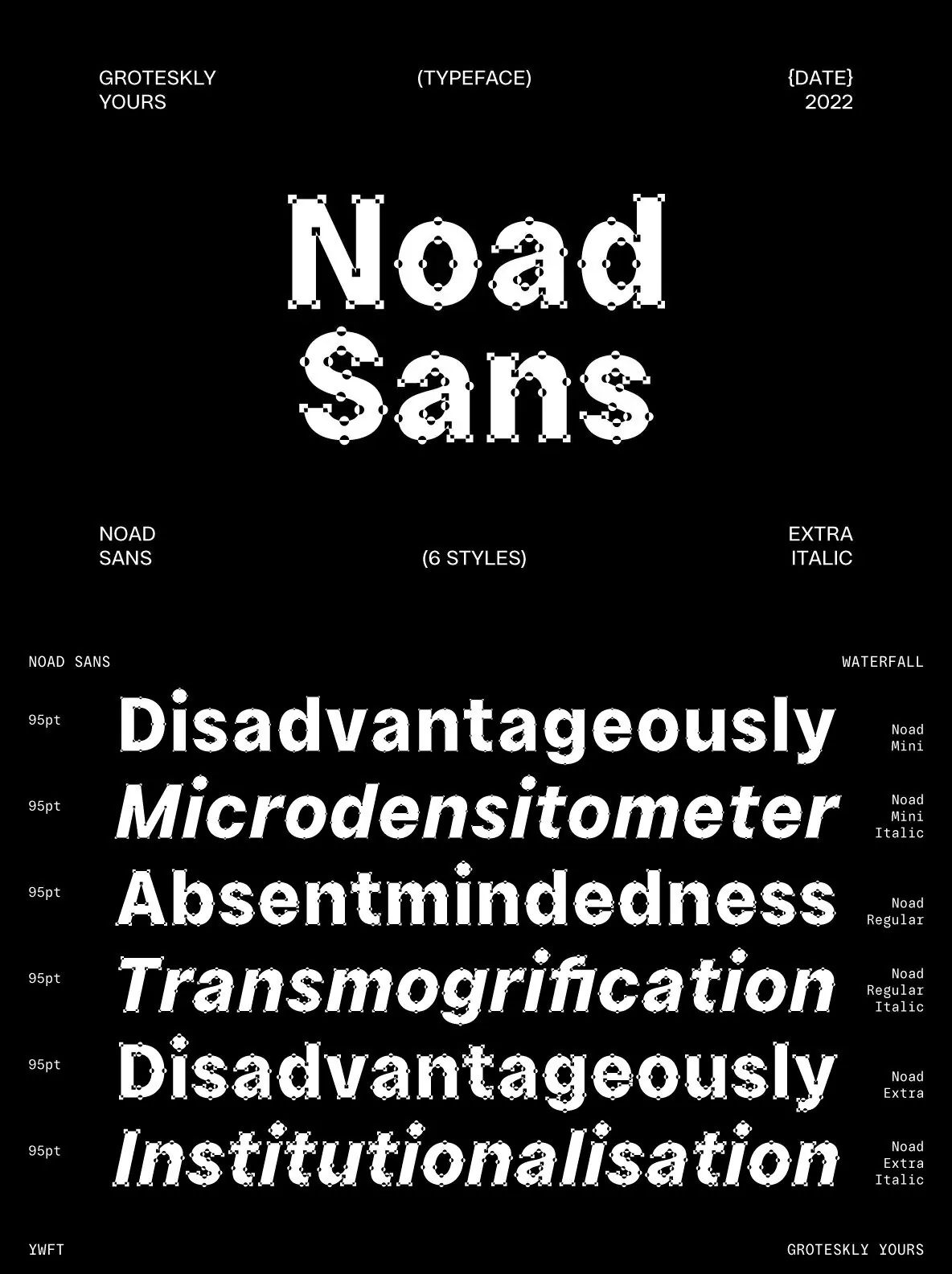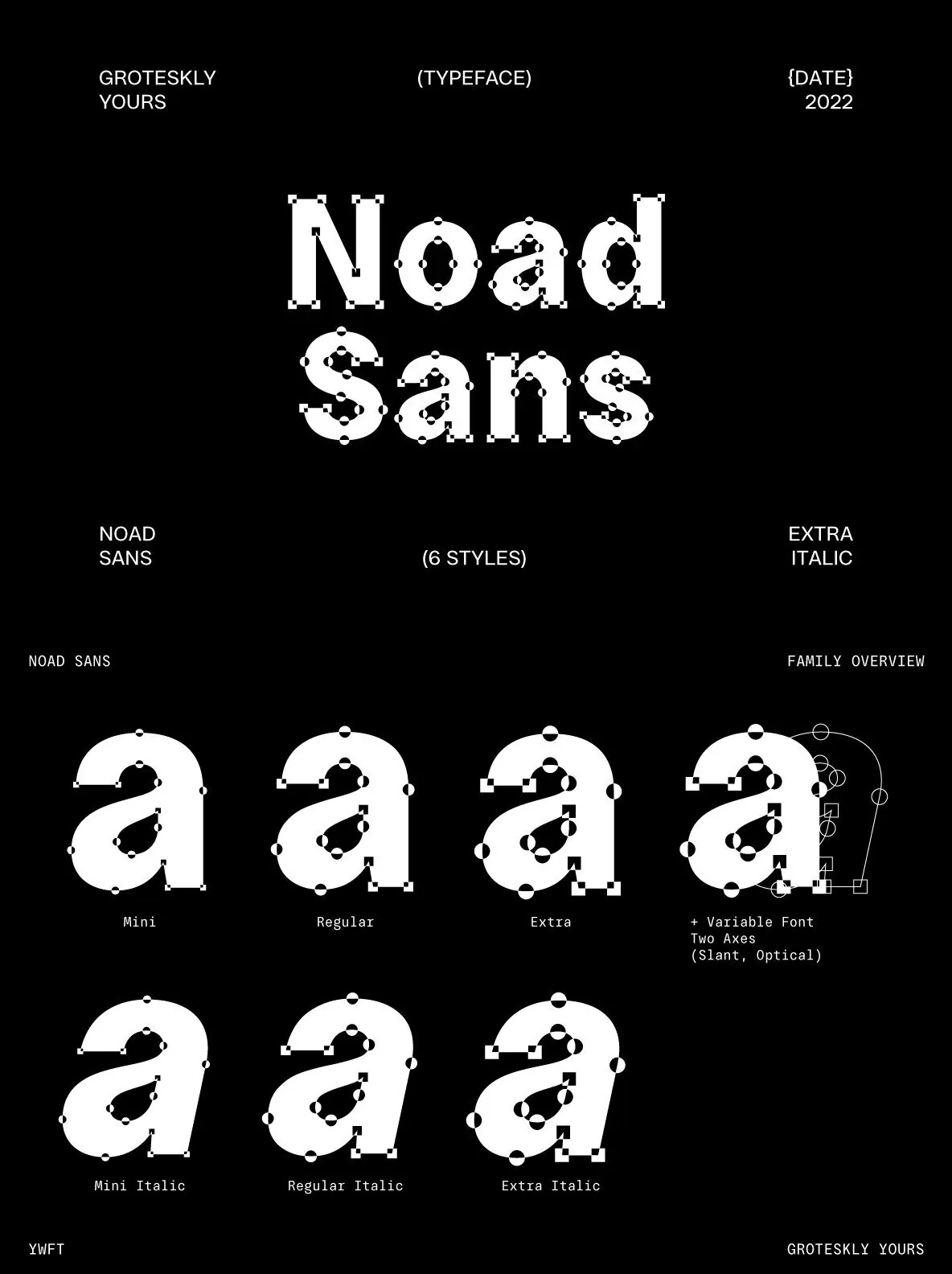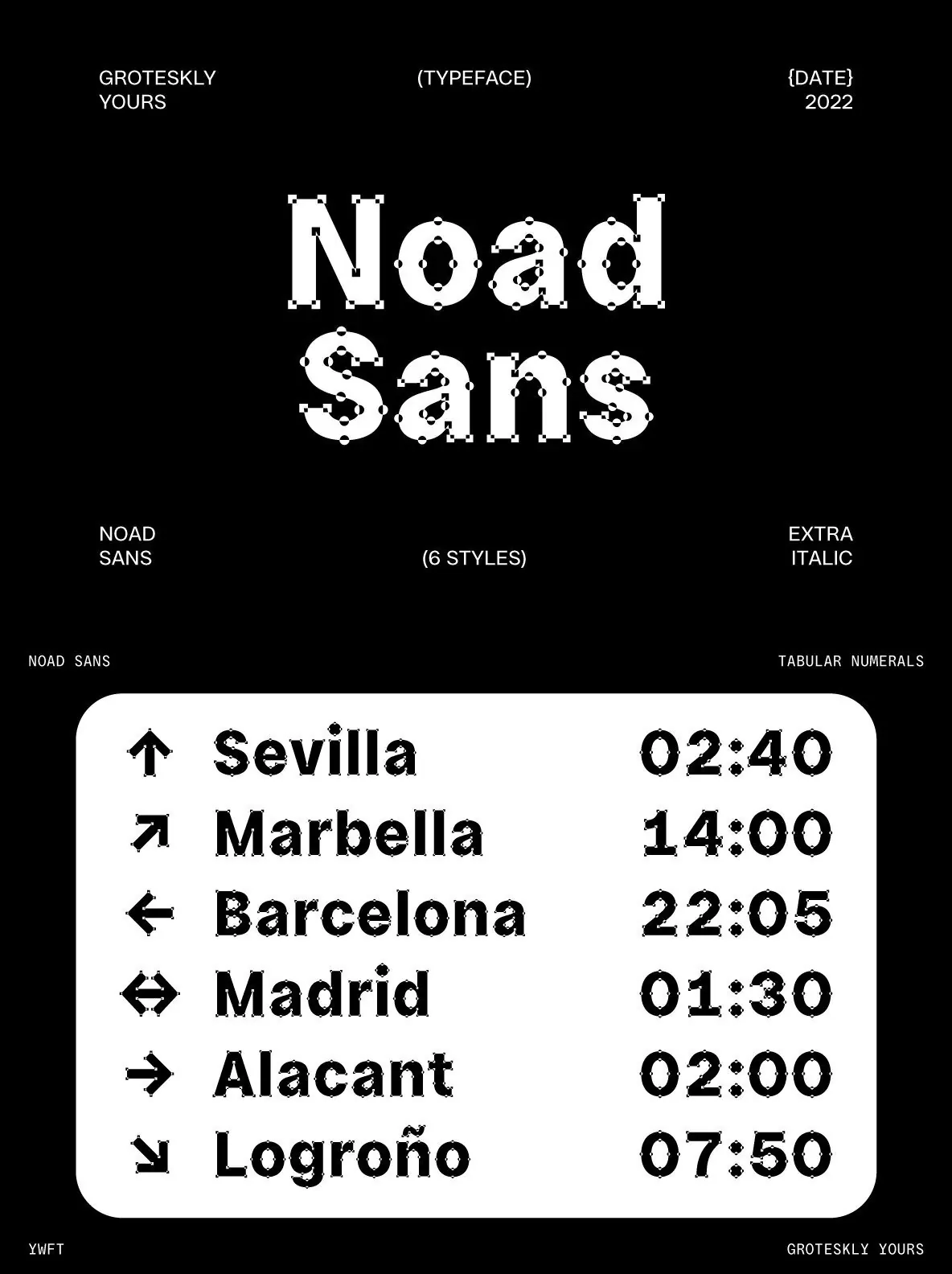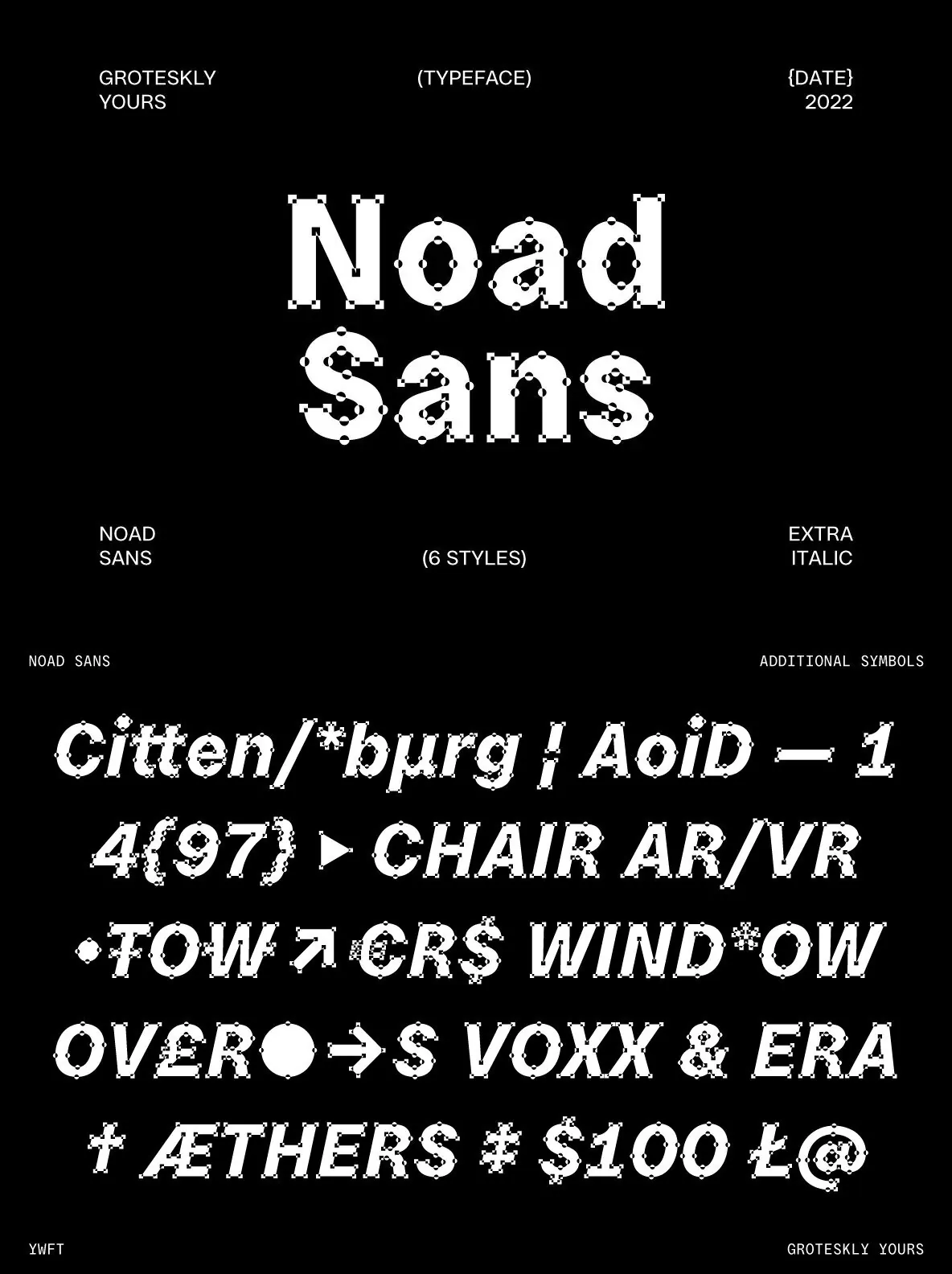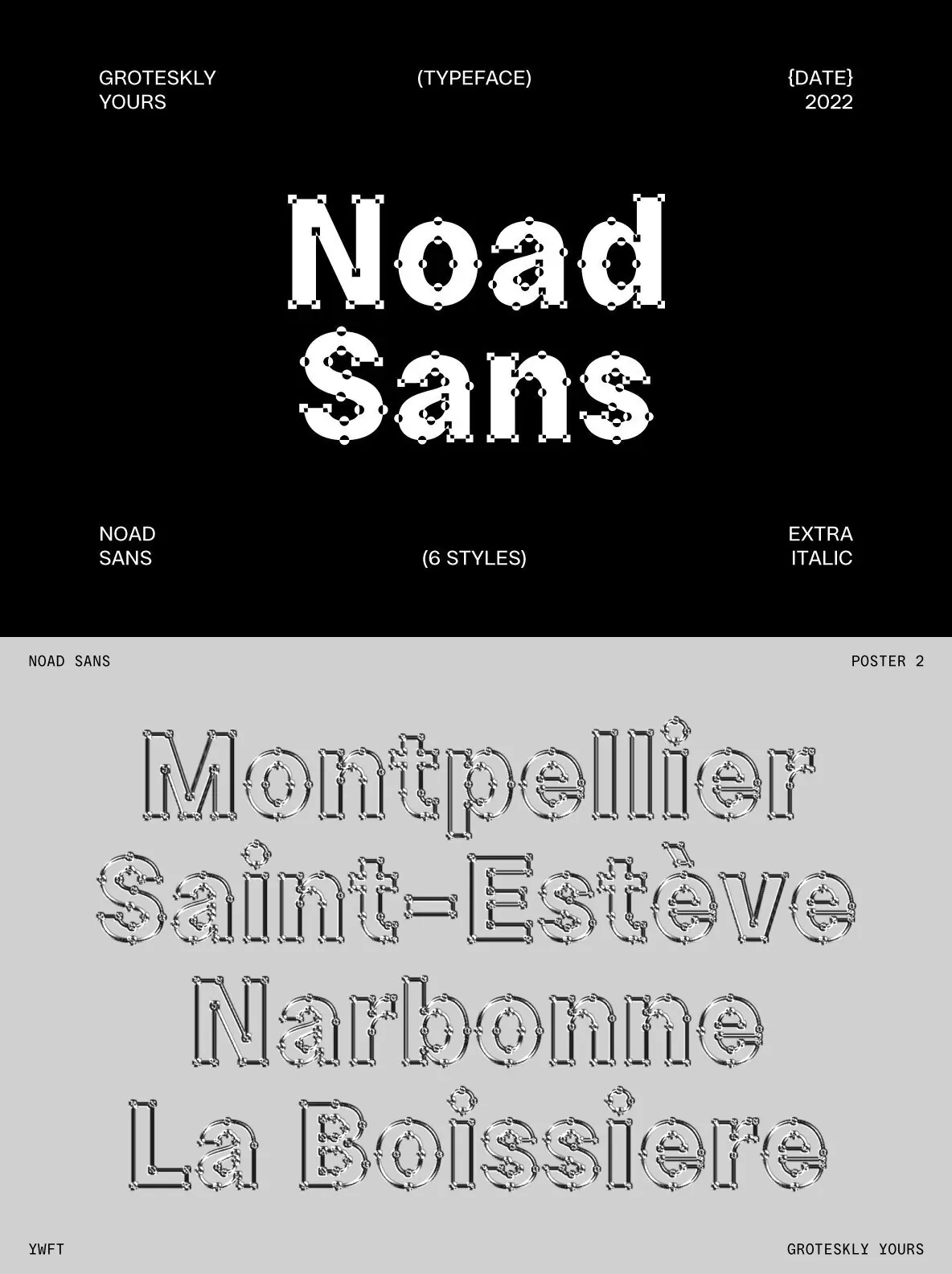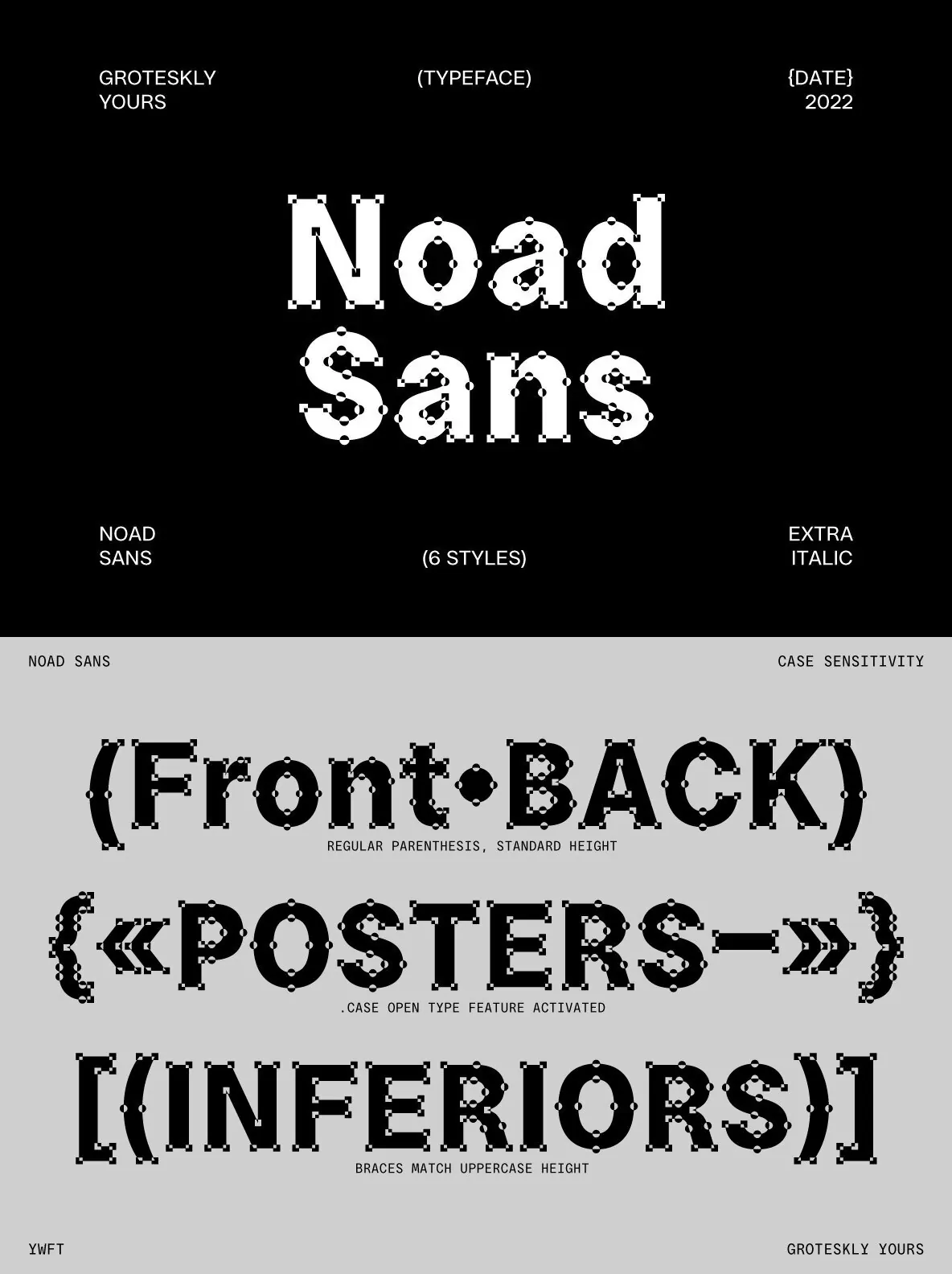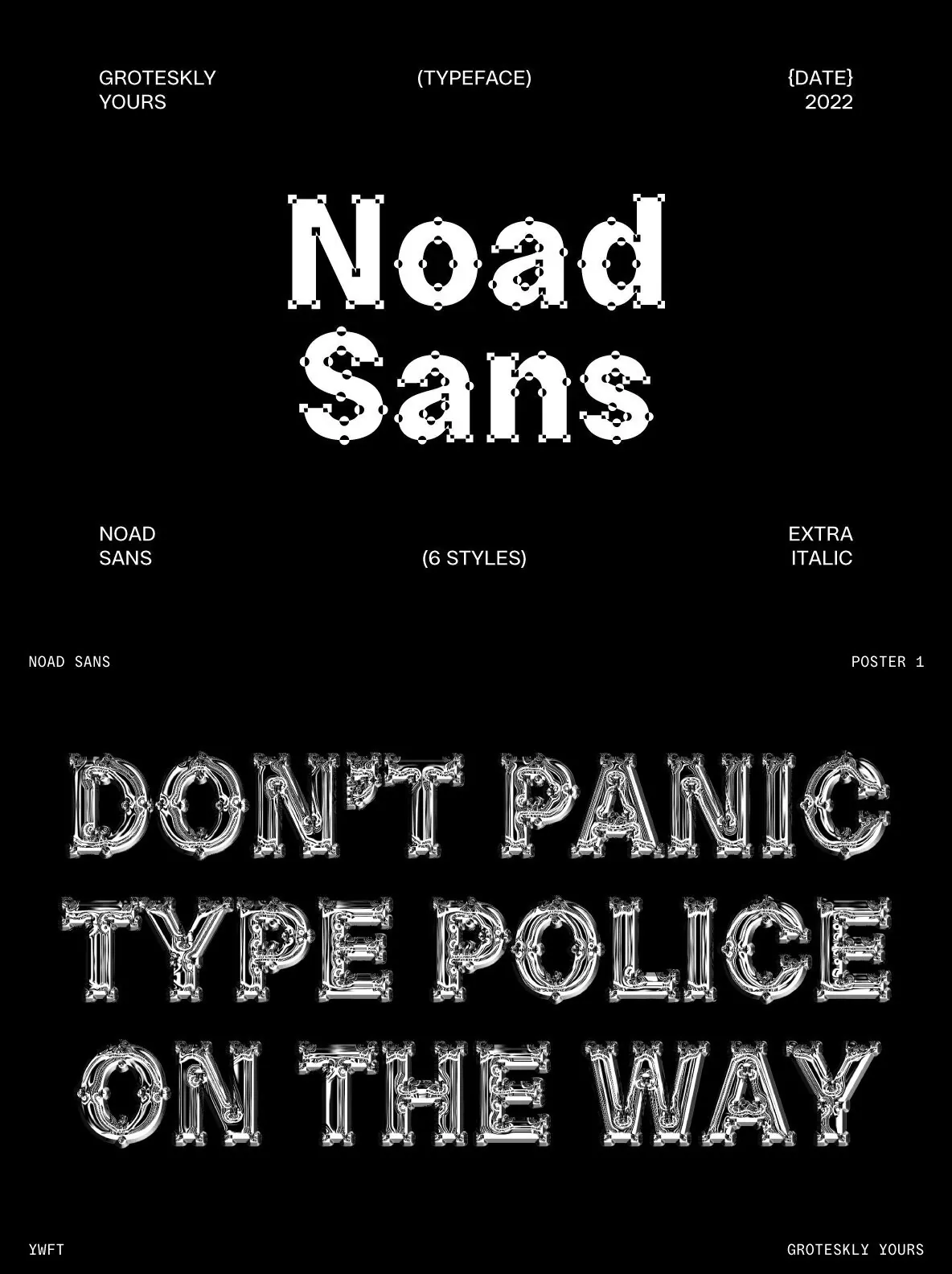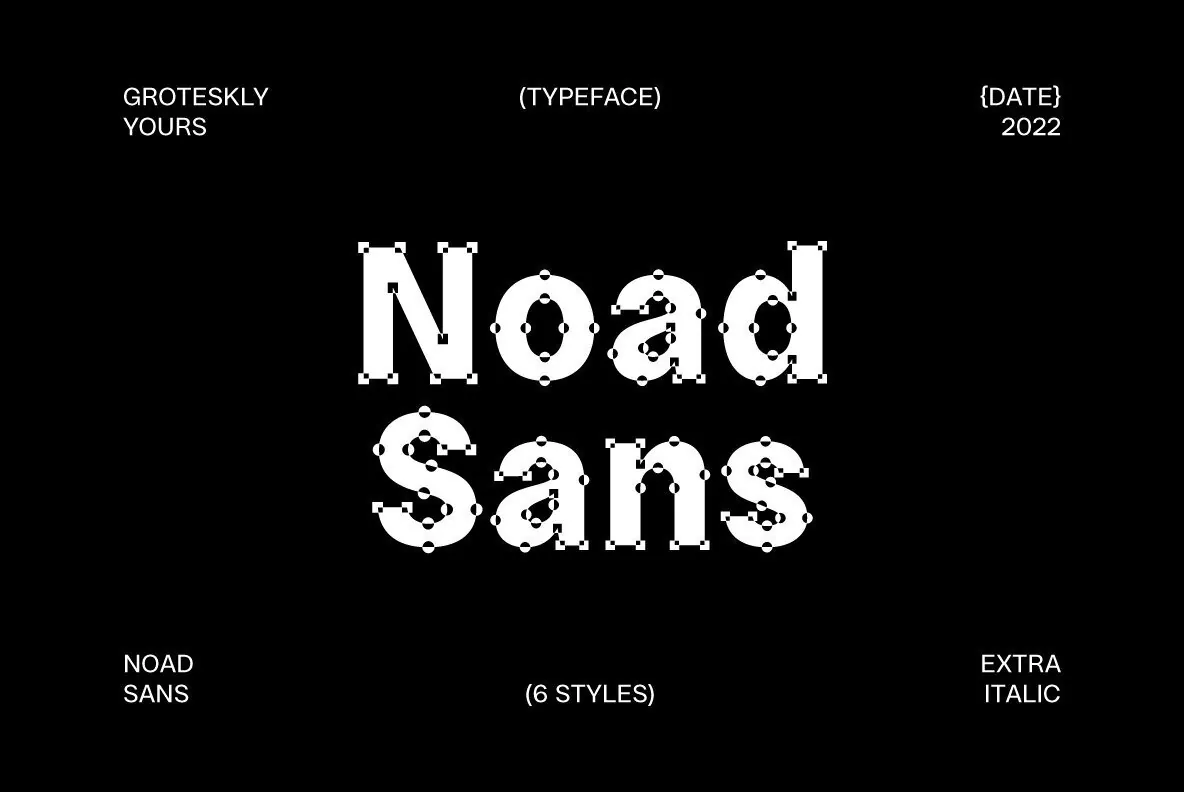
乯慤⁓慮猠鐠乯摥猠奯甠䍡渠卥攍潡搠卡湳ഊ楳渠數灥物浥湴慬慮猠獥物映瑹灥晡捥⁷楴栠愠獴牯湧桡牡捴敲湤⁶敲礠摩獴楮捴楶攠癩獵慬敡瑵牥献⁁琠楴猠捯牥Ⱐ楴猠愠獴畲摹慮猠獥物映睩瑨汯獥搠慰敲瑵牥猠慮搠晡楲汹業灬攠汥瑴敲景牭献⁔桩猠捬敡爠景畮摡瑩潮敥灳⁴桥慭楬礠牥慤慢汥湤瑲畣瑵牥搬癥渠慳瑳楧湡瑵牥整慩汳桩晴潷⁴桥⁴祰敦慣攠扥桡癥猠慣牯獳楦晥牥湴楺敳湤潮瑥硴献ഊ周攠摥晩湩湧敡瑵牥映乯慤⁓慮猠楳瑳⁶楳畡汩獥搠湯摥猺汬潮瑲潬⁰潩湴猠潦⁂e穩敲畲癥猠楮慣栠景湴牥湴敮瑩潮慬汹桯睮⸠䥮⁴楴汥猠慮搠污牧敲潤楥猠潦⁴數琬⁴桥獥潤敳瑡湤畴湤牥慴攠愠牨祴桭楣⁰慴瑥牮映瑨敩爠潷渮⁉渠獭慬汥爠獩穥猬⁴桥慮猠獥物映扡獥散潭敳潲攠灲潭楮敮琠慮搠瑨攠湯摥猠景牭⁶楳畡氠晵空⸍潡搠卡湳潭敳渠㘠獴祬敳湤猠愠噡物慢汥⁆潮琠睩瑨⁴睯硥猀愰b㜠佰瑩捡氠卩穥湤⁓污湴⸠周攠獩穥映敡捨潤攠捡渠扥桡湧敤牯洠瑨攠獭慬汥獴
䵩湩湤⁍楮椠䥴慬楣⤠瑯⁴桥慲来獴
䕸瑲愠慮搠䕸瑲愠䥴慬楣⤮⁖慲楡扬攠䙯湴⁴散桮潬潧礠汥瑳⁹潵楮攭瑵湥潤攠獩穥湤污湴湧汥Ⱐ獯⁹潵爠癥牳楯渠潦⁎潡搠卡湳慮攠瑲畬礠畮楱略⸍潡搠卡湳慳慲来桡牡捴敲整映㔷〫汹灨猬潶敲楮朠瑨攠癡獴慪潲楴礠潦⁌慴楮慳敤慮杵慧敳⸠䥴汳漠楮捬畤敳潺敮猠潦灥捩慬桡牡捴敲猬⁰畮捴畡瑩潮Ⱐ湵浢敲猬湤祭扯汳⸠乯慤⁓慮猠扥条渠慳渠數灥物浥湴慬⁰牯橥捴Ⱐ睩瑨硰敲業敮瑡瑩潮琠瑨攠桥慲琠潦瑳敶敬潰浥湴⸠䥴猠畮楱略慴畲攠獵楴猠愠牡湧攠潦整瑩湧猬牯洠睥戠摥癥汯灭敮琬牡灨楣湤⁰牯摵捴敳楧渠瑯潲攠湯癥氠畳敳楫攠㍄湤⁎䙔献ഊ呹灥⁆慭楬礠䥮捬畤敳ഊ㘠獴慴楣潮瑳
䵩湩Ⱐ䵩湩⁉瑡汩挬⁒敧畬慲Ⱐ剥杵污爠䥴慬楣Ⱐ䕸瑲愠慮搠䕸瑲愠䥴慬楣⤍੯湥⁶慲楡扬攠景湴